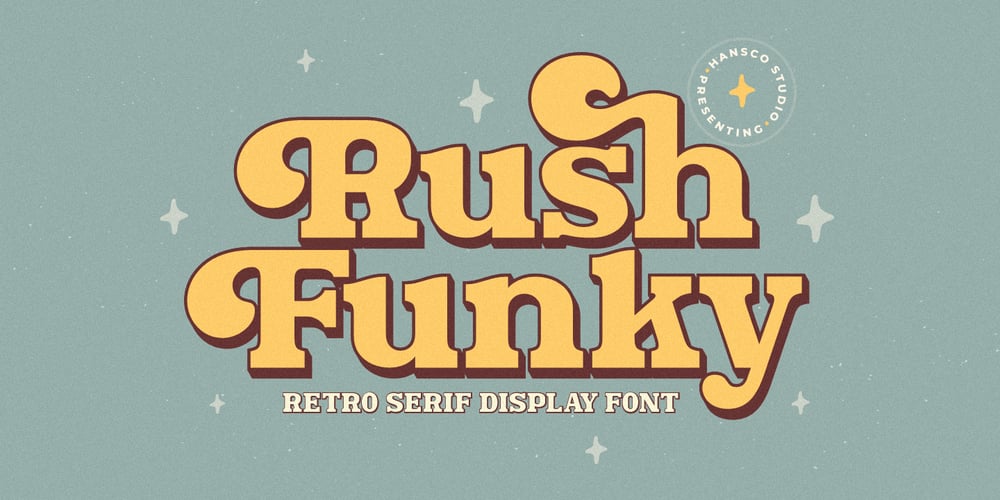
Rush Funky Font Family was designed by Burhan Afif and published by HansCo. Rush Funky contains 1 styles and family package options. Rush Funky is a serif typeface with vintage and retro look!. Equipped with all complete characters ranging from uppercase letters, lowercase letters, numbers, punctuation marks and multi-lingual support, this font is ready to be used in any project. Uppercase & Lowercase Numbers & Punctuation Multilingual Alternate character & ornament How to access alternate / ornament ? : https://hanscostudio.com/tutorial/Enjoy!